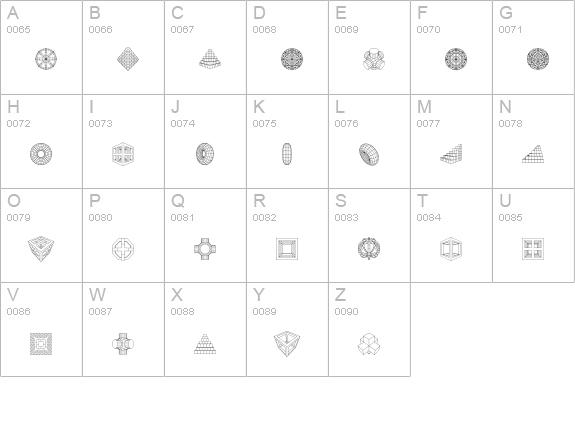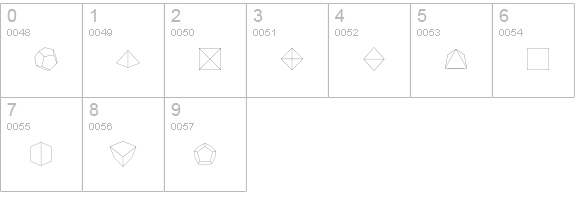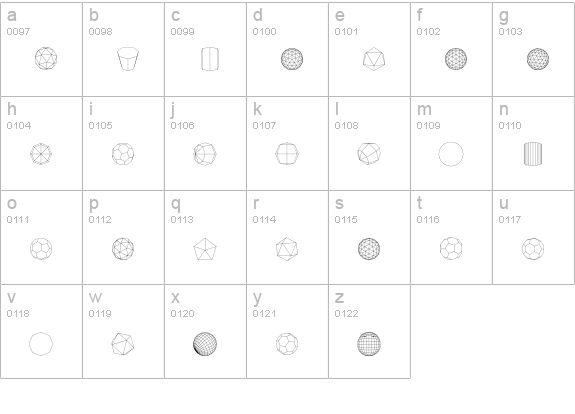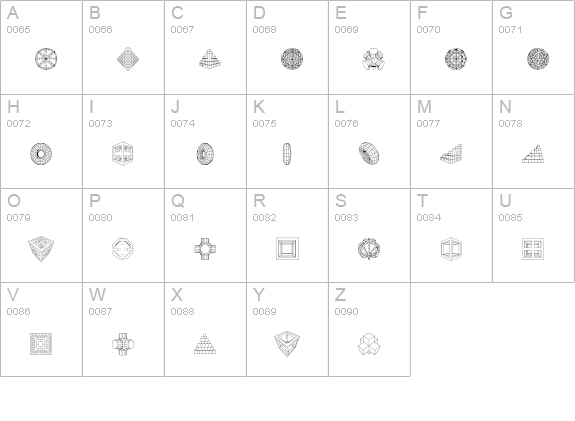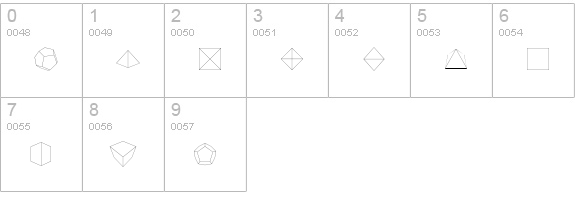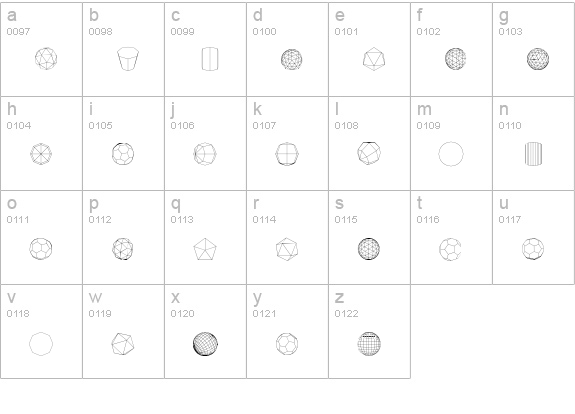
FORM font is a sleek and modern typeface that brings a touch of sophistication to any design project. Its clean lines and geometric shapes give it a contemporary feel, making it perfect for a wide range of applications. Whether you're designing a website, creating a logo, or working on a print project, FORM font is sure to make a statement. Best of all, FORM font is completely free to download at FontsMarket.com. This means you can add this stylish font to your collection without any cost, making it a valuable resource for designers on a budget. Don't miss out on the opportunity to enhance your projects with the elegant and versatile FORM font – download it today and see the difference it can make!